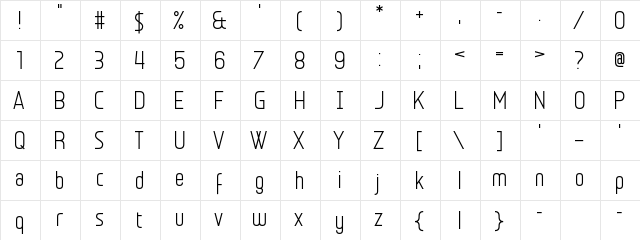
Egosurf Stiffler Regular
| Designer | Allison James |
Design Context for Egosurf Stiffler Typeface
Egosurf Stiffler is a composed and adaptable typeface that performs quietly and consistently across a wide range of design contexts.